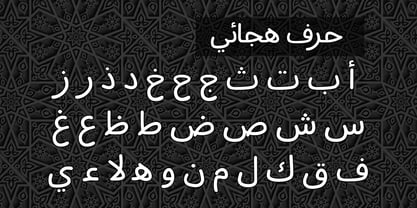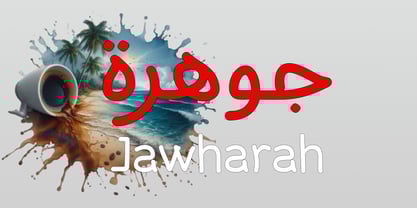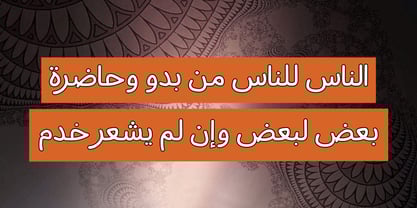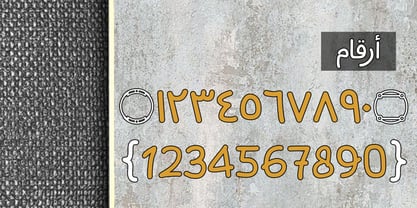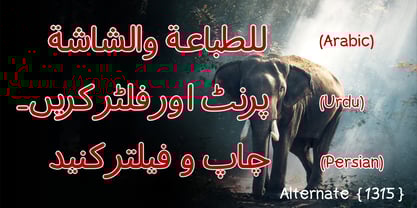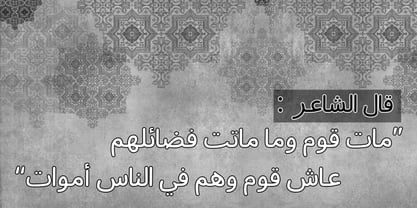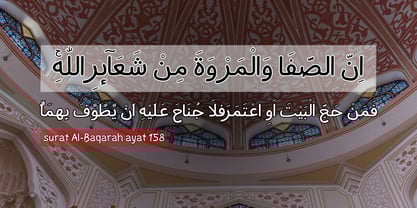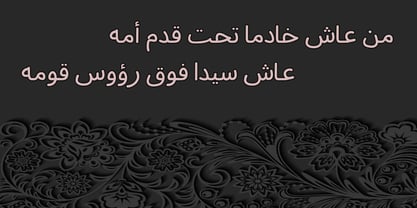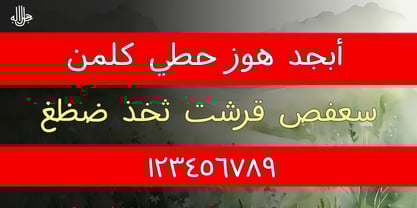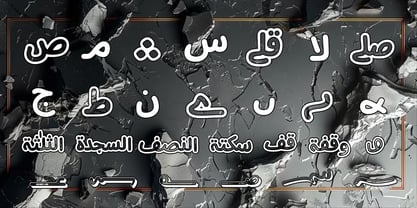
Jawharah
by Kaidosan
Jawharah (جوهرة) — meaning “jewel” — is a modern Arabic handwritten font that beautifully blends the grace of traditional calligraphy with a contemporary, personal touch. Each stroke is thoughtfully crafted to reflect the warmth and authenticity of Arabic handwriting, while maintaining elegant readability. This font comes in three harmonious styles: Regular – The natural handwritten form with smooth and balanced curves. Perfect for main text, quotes, or modern Islamic designs that seek simplicity and authenticity. Outline – A refined line-art version that adds a touch of sophistication and artistic charm. Ideal for logos, posters, and standout headlines. Shadow – A dimensional variation with subtle shadows, creating depth and a premium visual feel. Excellent for digital works, packaging, or elegant branding projects. With its versatile trio of styles, Jawharah is designed to adapt seamlessly to a wide range of creative uses — modern Arabic branding, Islamic typography, digital artwork, elegant invitations, social media posts, and editorial layouts. Every detail in Jawharah embodies elegance, serenity, and authenticity, making it more than just a font — it’s a living jewel of Arabic typography.
Designers: Muhammad Ansari
Foundry: Kaidosan